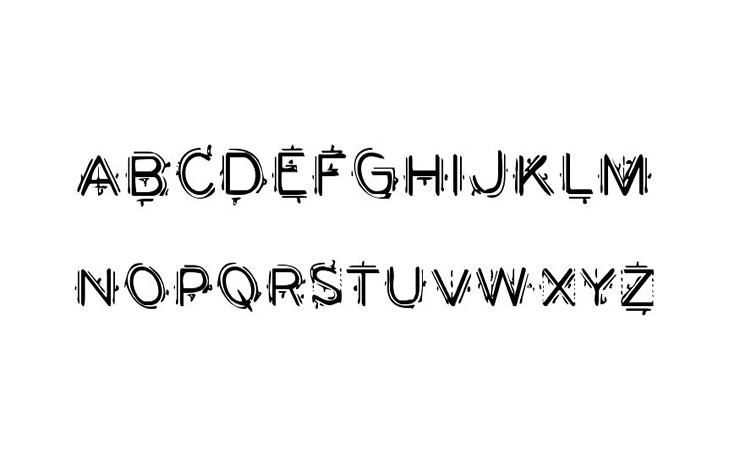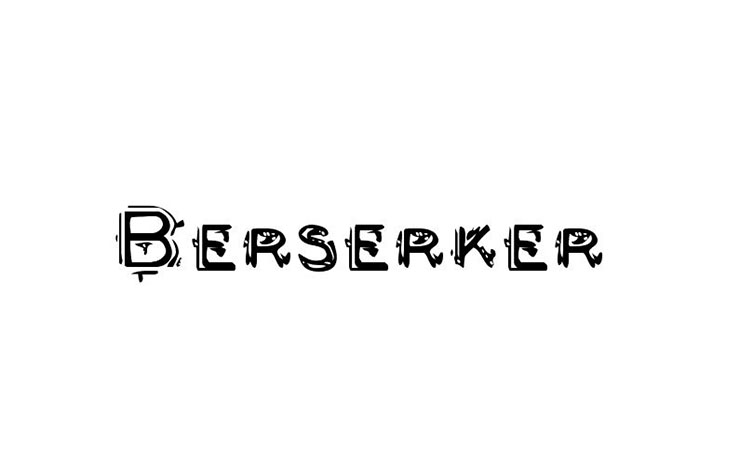
Berserker Font is a unique and eye-catching typeface designed by Iconian Fonts. It is a fancy distorted font that comes in 9 different styles, each with its own personality and flair.
The font is perfect for headlines, titles, posters, and other designs that require a bold and striking look.
Despite its distorted form, this font is still highly legible. The letters are well-defined, and each character has a distinct personality. The font is also highly versatile, with styles that range from bold and aggressive to playful and whimsical.
It includes uppercase and lowercase letters, numbers, punctuation, and special characters, making it suitable for a variety of design projects. And also supports 68 languages.
| Font Name: | Berserker Font Family |
| Style: | Distorted, Fancy, Display |
| Font Designer: | Iconian Fonts |
Its distorted appearance, a wide range of characters, and versatility make it an ideal font for a variety of design projects.
The letters are elongated and twisted, giving them a wild and chaotic feel. This makes the font ideal for designs that require a sense of energy and movement, such as sports posters, music festival flyers, or action movie titles.
It is ideal for multiple purposes. For example, you can openly use it for movie posters, game titling, game development, special event cards, horror designs, social media posters, flyers, headers, titles, banners, stickers, tattoos, and more.
Berserker Font supports 68 multiple languages.